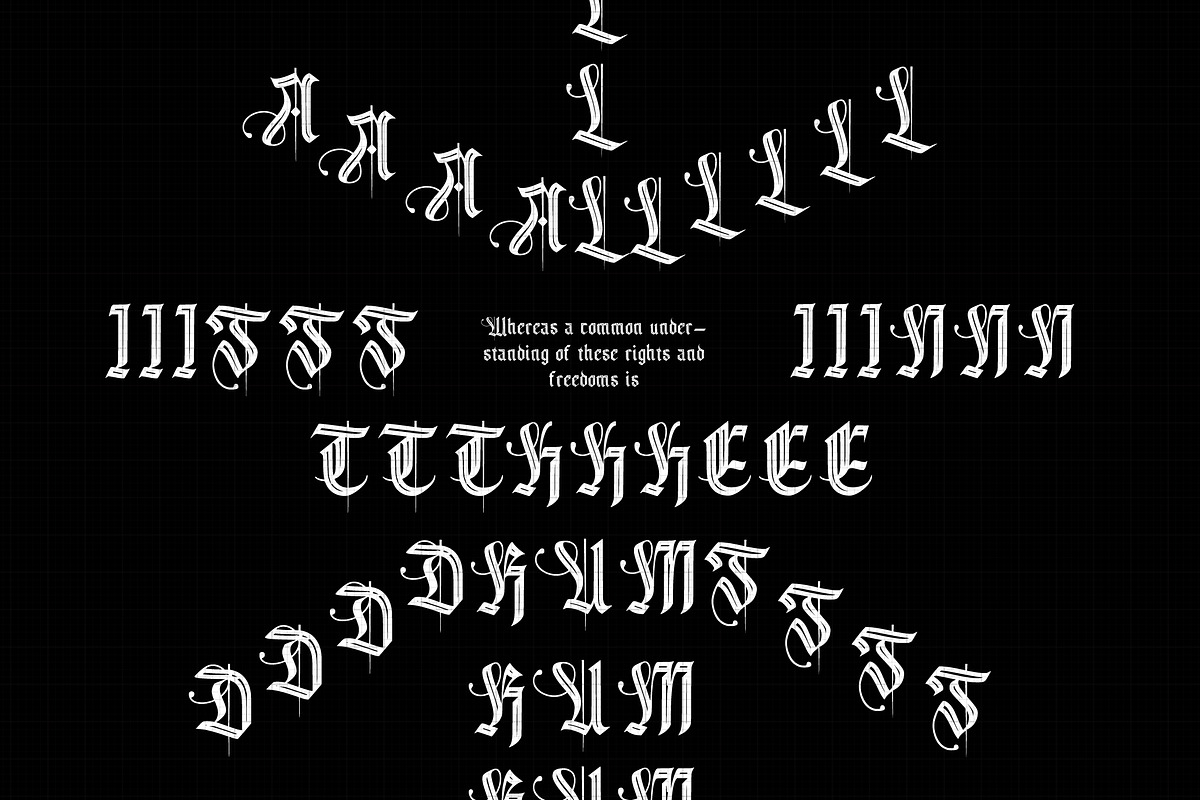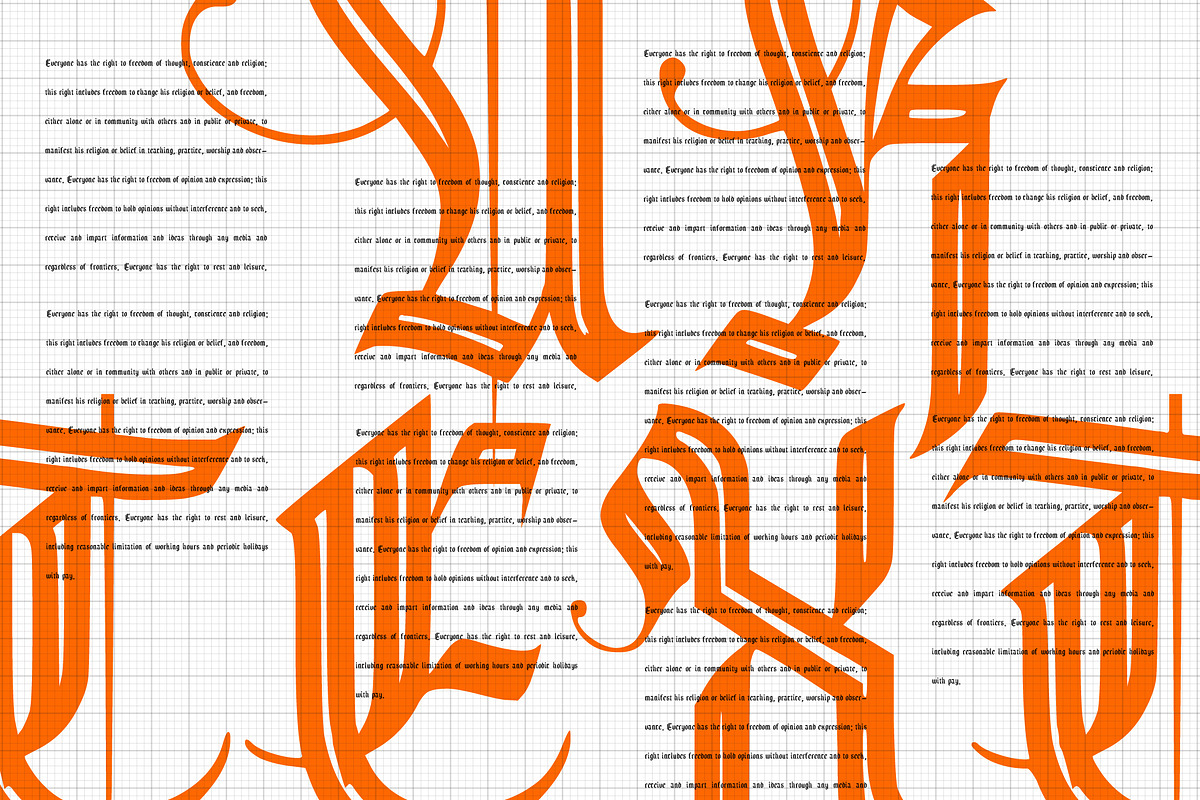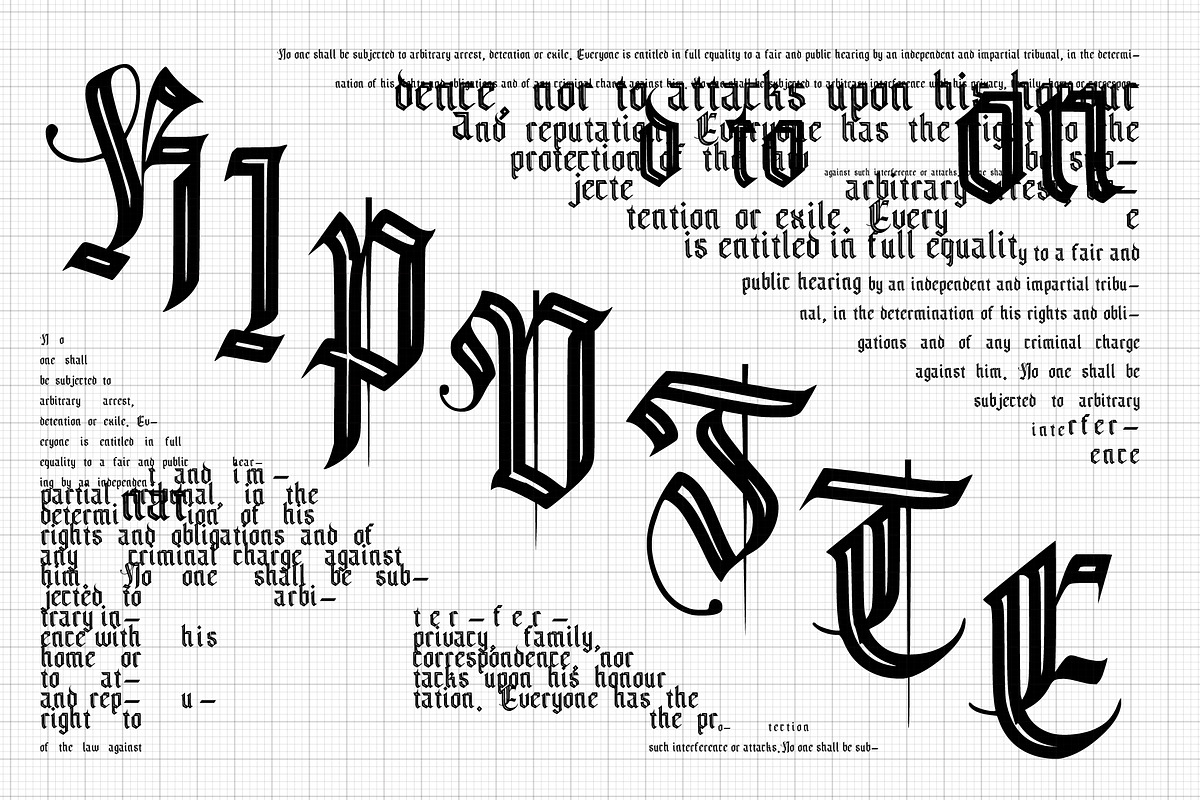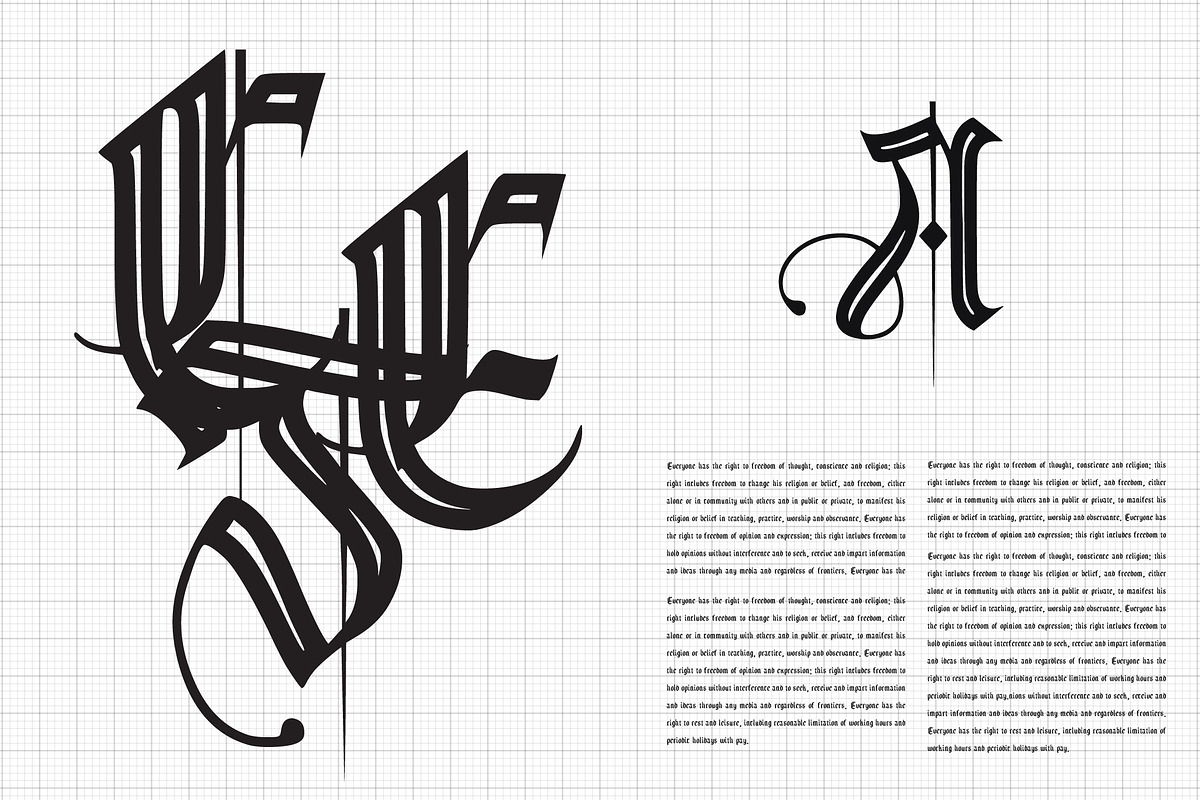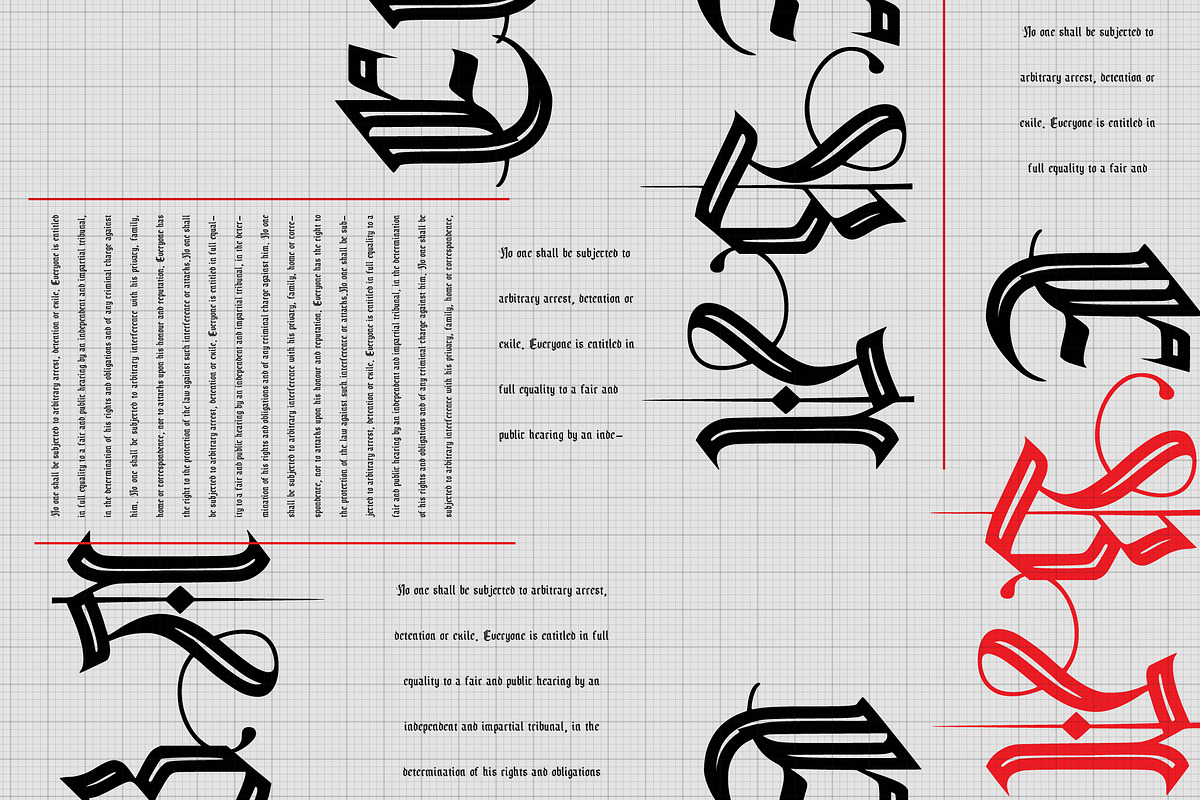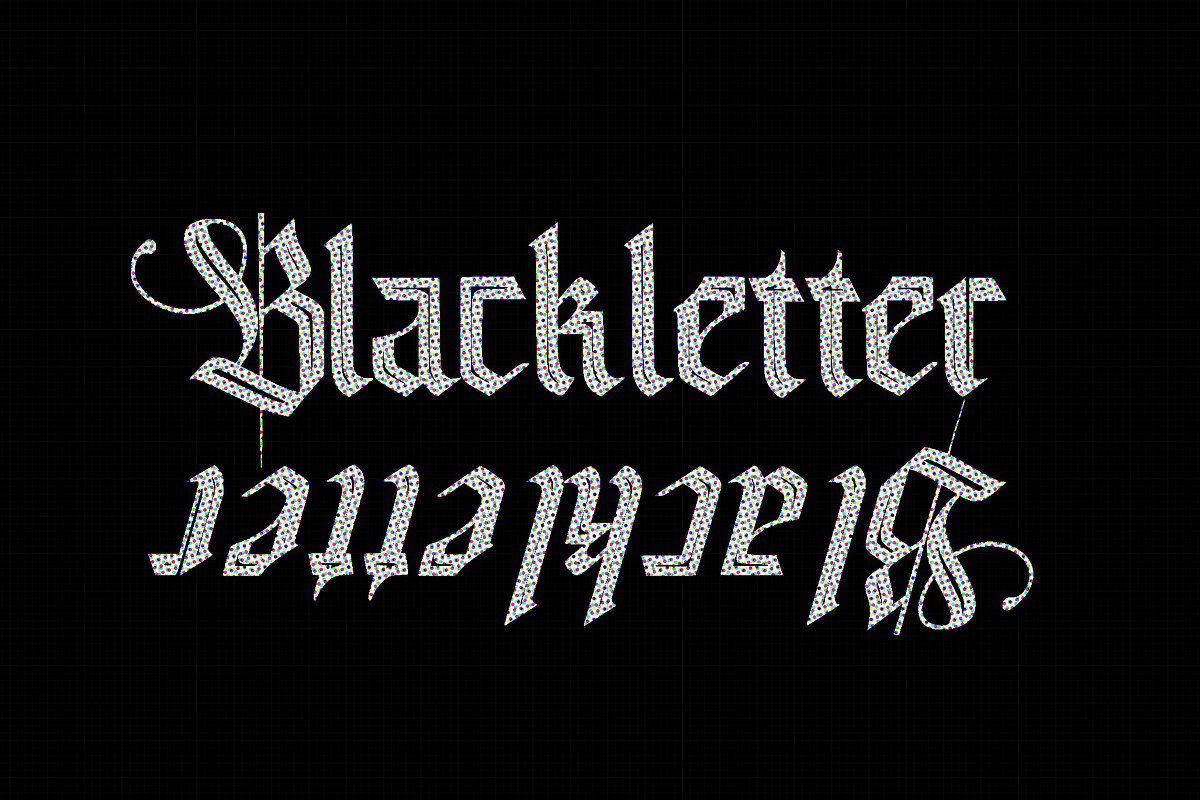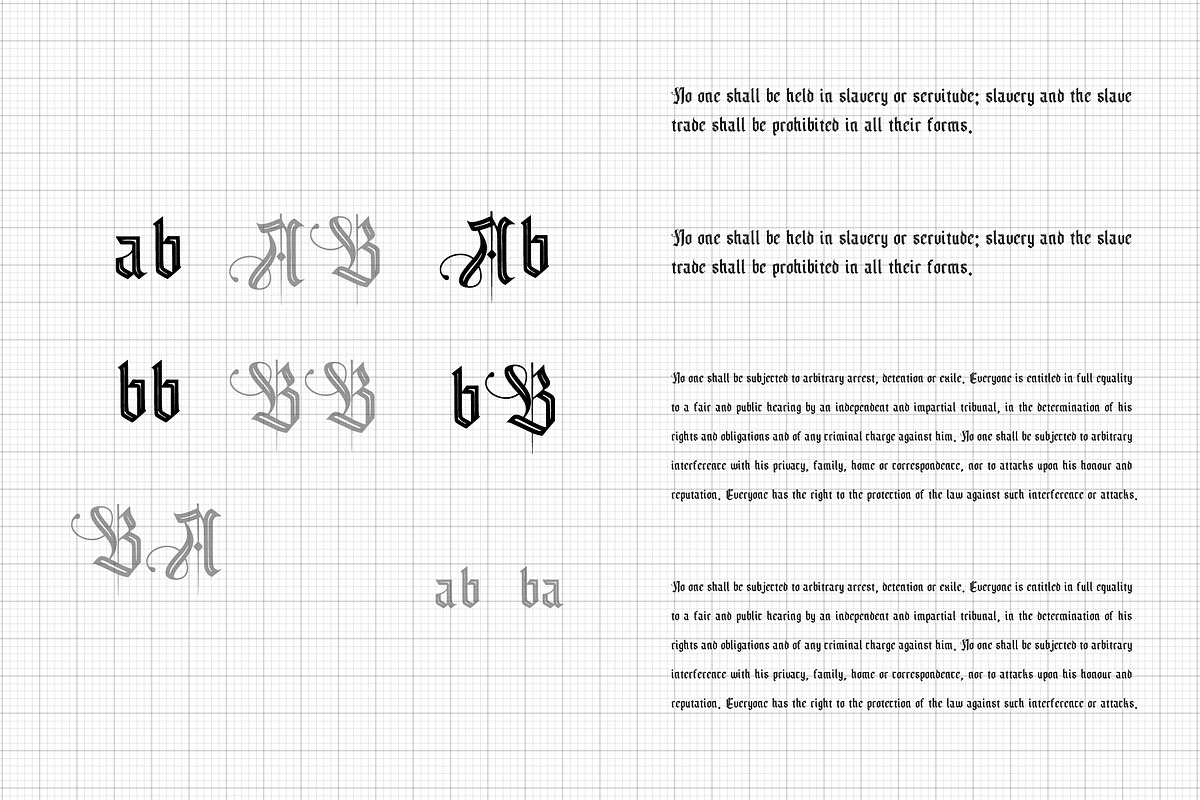
Frakturshape Line
Frakturshape Line Font
Fraktur (German: [fʁakˈtuːɐ̯] ) is a calligraphic hand of the Latin alphabet and any of several blackletter typefaces derived from this hand. It is designed such that the beginnings and ends of the individual strokes that make up each letter will be clearly visible, and often emphasized; in this way it is often contrasted with the curves of the Antiqua (common) typefaces where the letters are designed to flow and strokes connect together in a continuous fashion. The word "Fraktur" derives from Latin frāctūra ("a break"), built from frāctus, passive participle of frangere ("to break"), which is also the root for the English word "fracture". In non-professional contexts, the term "Fraktur" is sometimes misused to refer to all blackletter typefaces – while Fraktur typefaces do fall under that category, not all blackletter typefaces exhibit the Fraktur characteristics described above.